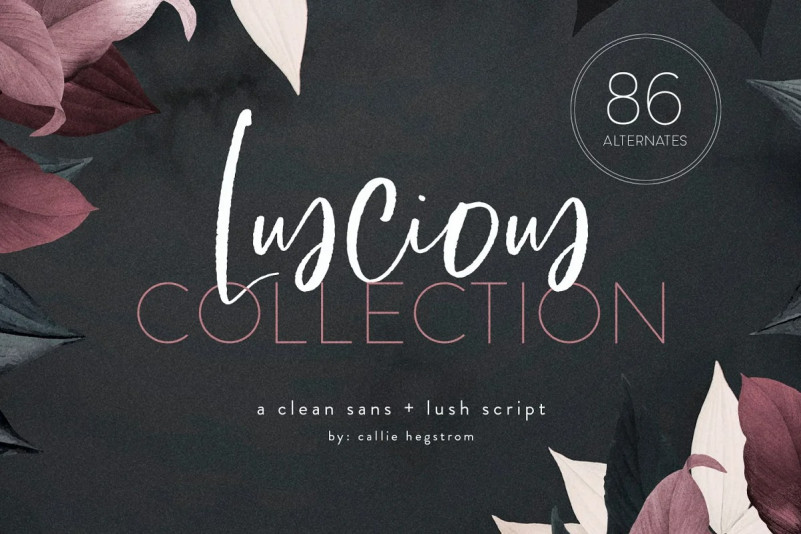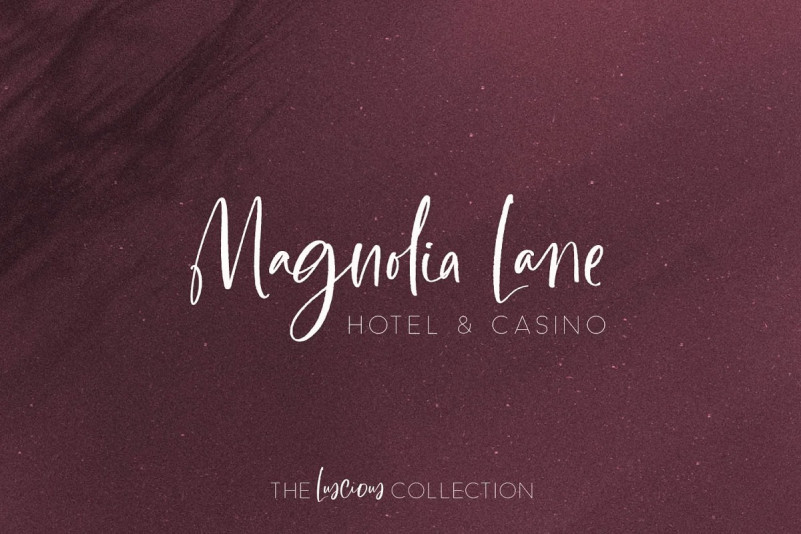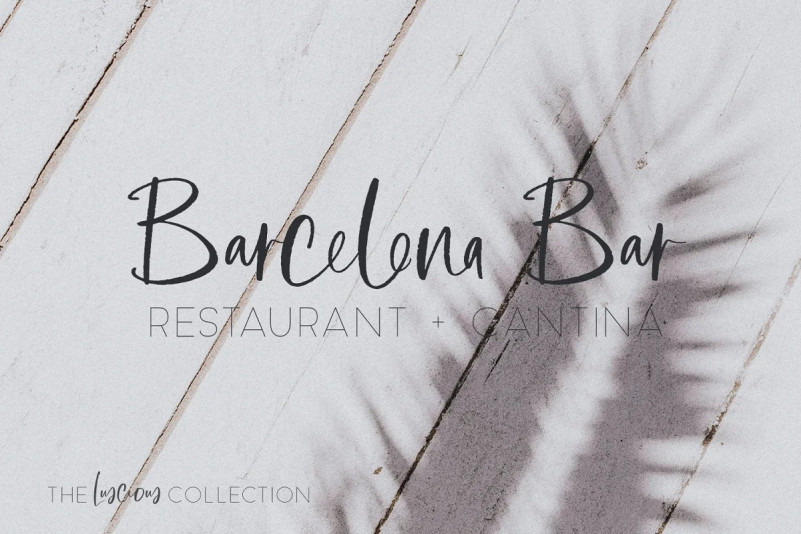
The Luscious Collection Font
Let’s get Luscious! Add a dash of decadence to your projects with The Luscious Collection, a sultry, sophisticated script and a modern, refined sans serif in 3 weights.
Perfect for branding, bridal, social media, packaging, greeting cards, totes, apparel, mugs and more! Use the previews as your inspiration. There’s a lot you can do! Can’t wait to see what you make!